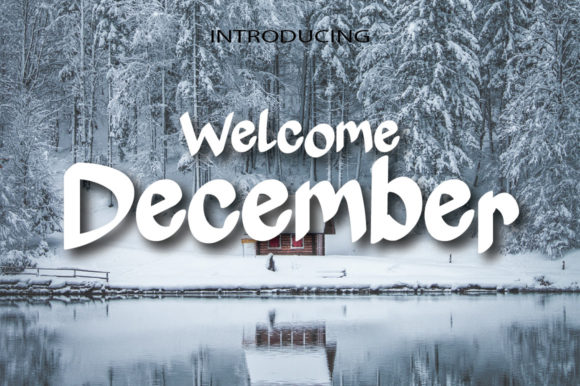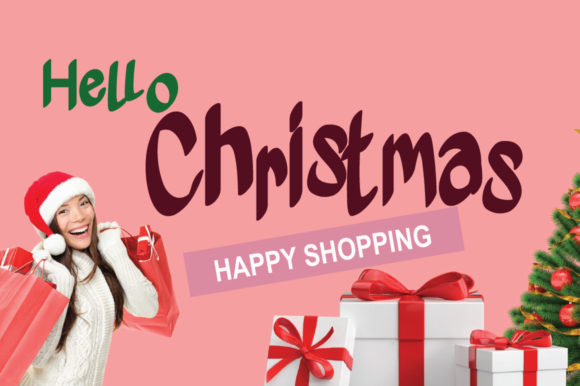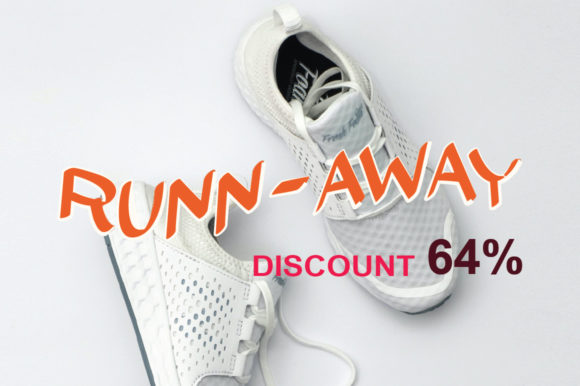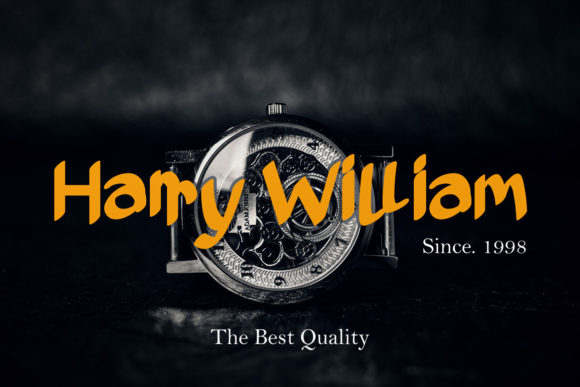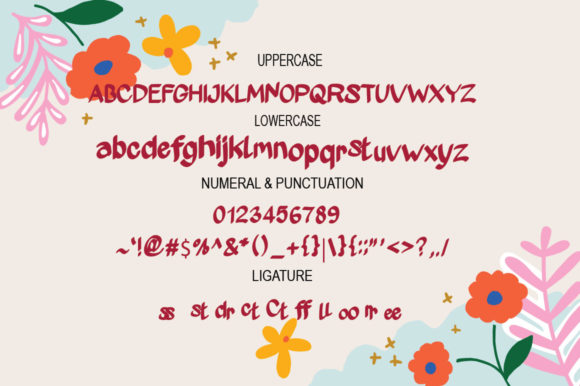
Welcome December Font
About Welcome December Font
Welcome December is a cute handwritten font with a modern style and an attractive shape. This typeface can be used to promote your products on Christmas day, Black Friday, New Year’s Eve, or any other occasion.